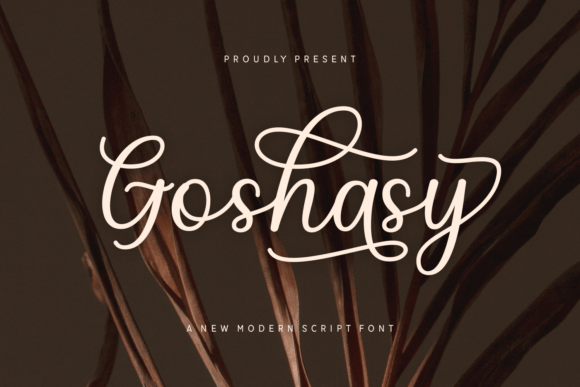
Goshasy Font: Elevate Your Designs with Elegant Script Calligraphy
Are you looking for a font that adds a touch of sophistication and elegance to your designs? Look no further than Goshasy, a beautiful script calligraphy font that features flowing letters with a modern, handwritten style. In this article, we’ll explore the features and benefits of Goshasy, and how it can elevate your designs to the next level.
What is Goshasy Font?
Goshasy is a stunning script calligraphy font that boasts elegant, cursive letters with a modern twist. Its flowing lines and curves create a sense of movement and fluidity, making it perfect for designs that require a personal touch. Whether you’re working on invitations, greeting cards, or any other project that needs a stylish and artistic look, Goshasy is the perfect choice.
Key Features of Goshasy Font
- Elegant Script Style: Goshasy features a beautiful script style with flowing letters that exude elegance and sophistication.
- Modern Handwritten Look: The font has a modern, handwritten style that adds a personal touch to any design.
- Perfect for Creative Projects: Goshasy is ideal for designers and crafters who want to add a touch of style and artistry to their work.
- Easy to Read: Despite its elegant style, Goshasy is easy to read, making it perfect for body text and headings.
Benefits of Using Goshasy Font
- Adds a Personal Touch: Goshasy’s modern, handwritten style adds a personal touch to any design, making it perfect for projects that require a human touch.
- Versatile: The font is versatile and can be used for a wide range of projects, from invitations and greeting cards to logos and branding.
- Easy to Pair: Goshasy pairs well with other fonts, making it easy to create stunning font combinations.
- High-Quality: The font is of high quality, with crisp and clear lines that look great at any size.
How to Use Goshasy Font in Your Designs
- Use it for Headings: Goshasy is perfect for headings and titles, where its elegant style can really shine.
- Add it to Invitations: The font is ideal for invitations, where its personal touch can make a big difference.
- Pair it with Other Fonts: Experiment with pairing Goshasy with other fonts to create stunning font combinations.
- Use it for Branding: Goshasy can also be used for branding, where its modern, handwritten style can help to create a unique and memorable identity.
- Experiment with Font Sizes: Don’t be afraid to experiment with different font sizes to find the perfect size for your design.
- Play with Color: Goshasy looks great in a range of colors, so don’t be afraid to experiment with different hues and shades.
- Use it for Texture: The font’s flowing lines and curves make it perfect for creating texture and interest in your designs.